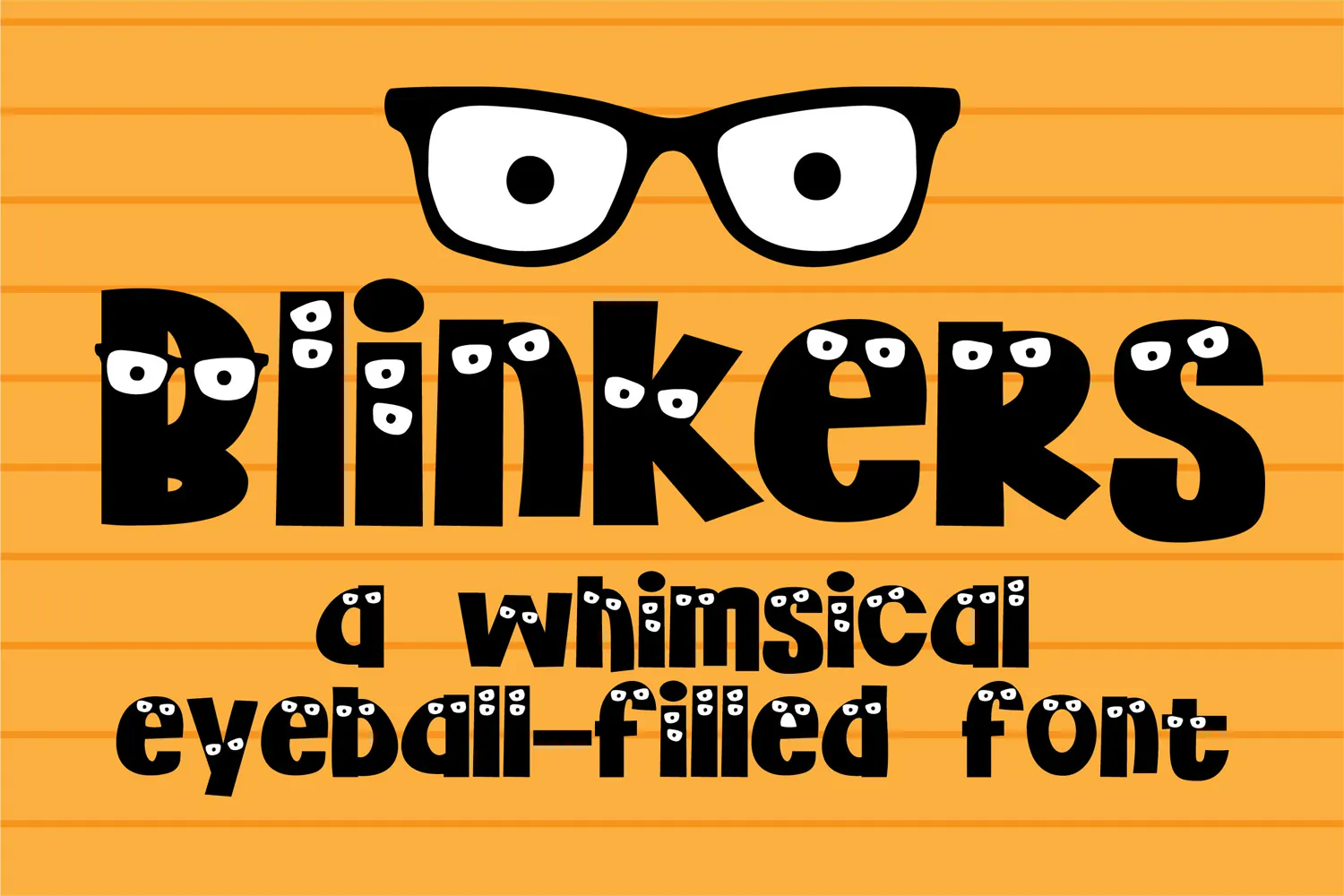
Blinkers Whimsical Eyeball Font
Blinkers is a bold, playful font with little eyes built into the letters. Give party signs, classroom projects, Halloween crafts, stickers, and kids’ designs a look that seems to stare right back!